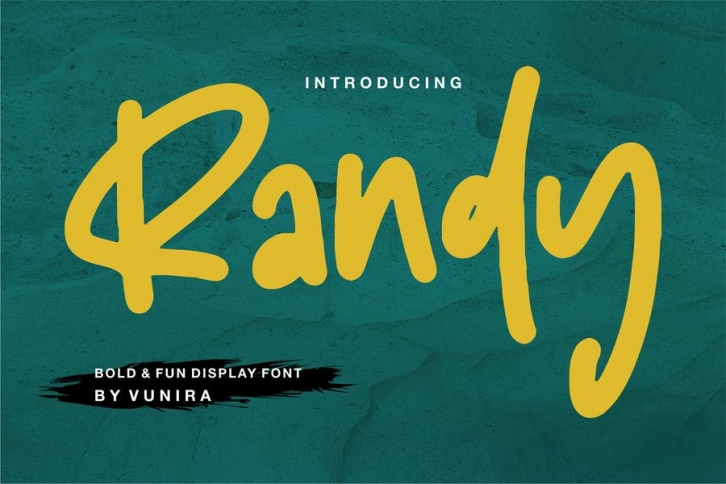
Randy | Bold & Fun Display Font with a calligraphy style, So beautiful on invitation like greeting cards, branding materials, business cards, quotes, posters, and more!
- Alternates and Ligatures